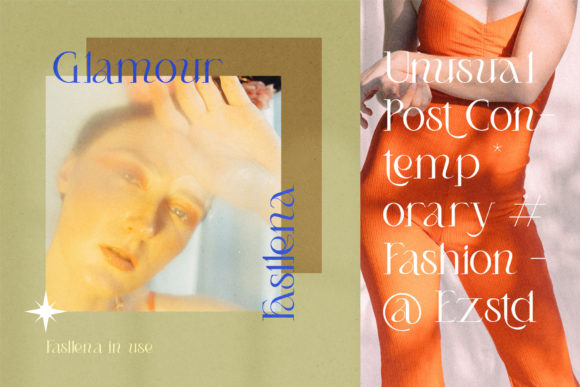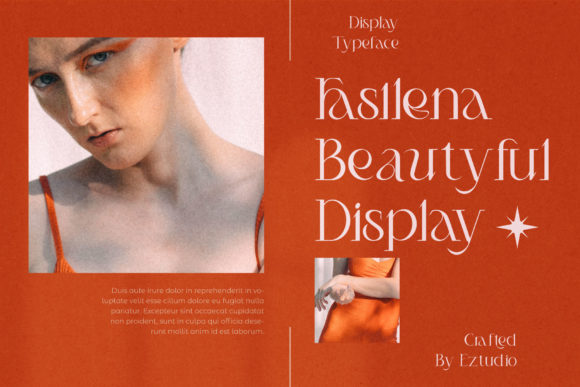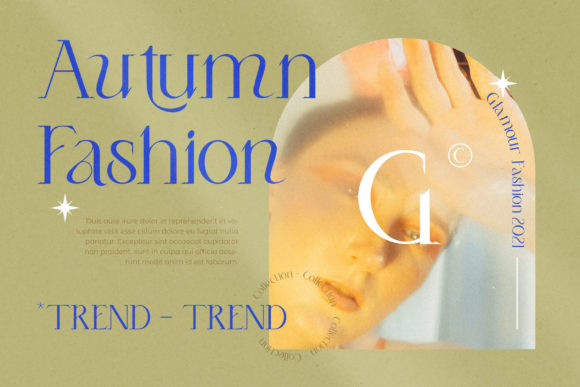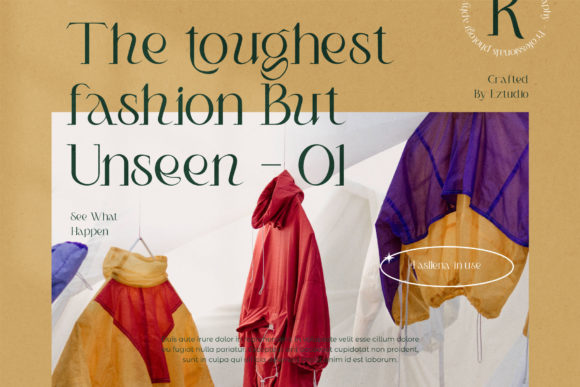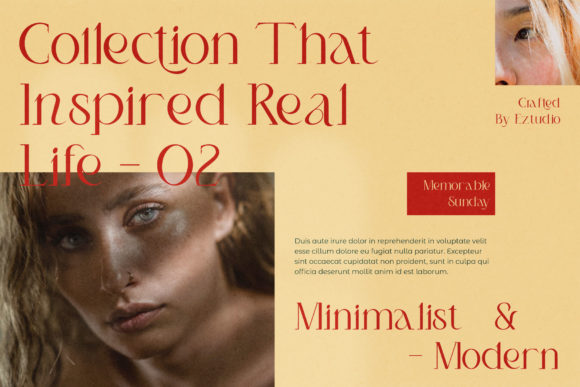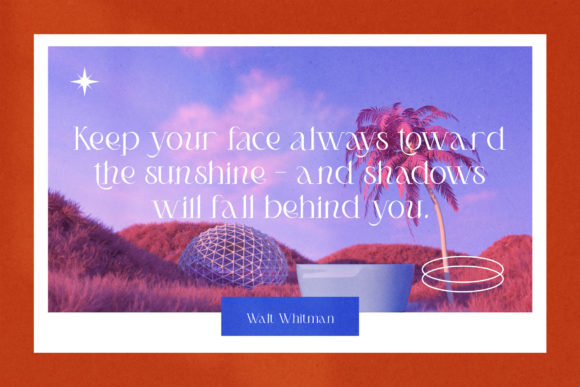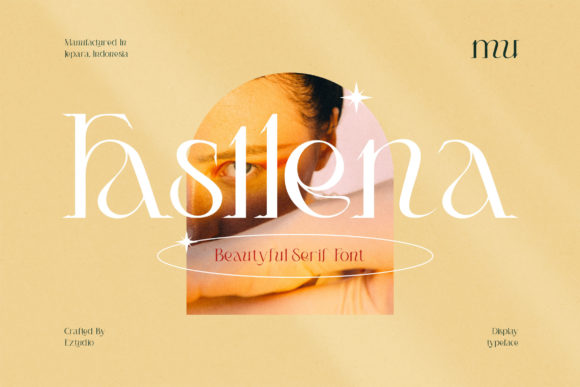
Fasllena Font: Elevate Your Designs with Elegance and Classic Style
Are you a designer or crafter looking for a font that can add a touch of sophistication and elegance to your creative projects? Look no further than Fasllena Font. This beautiful serif font is incredibly versatile and can elevate a wide range of designs to new heights. In this article, we’ll take a closer look at Fasllena Font and explore its features, benefits, and uses.
What is Fasllena Font?
Fasllena Font is a classic serif font that exudes elegance and refinement. Its timeless design makes it perfect for a variety of projects, from luxury branding and advertising to packaging, magazines, and more. The font’s serif details add a touch of sophistication, while its clean lines and simple shapes ensure that it remains highly legible, even at small sizes.
Key Features of Fasllena Font
So, what makes Fasllena Font so special? Here are just a few of its key features:
- Elegant and Classic Design: Fasllena Font features a traditional serif design that is both elegant and timeless.
- Highly Versatile: This font is incredibly versatile and can be used in a wide range of projects, from luxury branding to digital media.
- Excellent Legibility: Fasllena Font is designed to be highly legible, even at small sizes, making it perfect for body text and captions.
- Serif Details: The font’s serif details add a touch of sophistication and elegance to any design.
Benefits of Using Fasllena Font
So, why should you choose Fasllena Font for your next project? Here are just a few benefits of using this beautiful font:
- Adds Elegance and Sophistication: Fasllena Font can add a touch of elegance and sophistication to any design, making it perfect for luxury brands and high-end products.
- Improves Readability: The font’s excellent legibility ensures that your text is easy to read, even at small sizes.
- Increases Versatility: Fasllena Font can be used in a wide range of projects, from print to digital media, making it a great addition to any designer’s toolkit.
- Enhances Creativity: With Fasllena Font, you can create stunning designs that are sure to capture the attention of your audience.
Uses of Fasllena Font
Fasllena Font is incredibly versatile and can be used in a wide range of projects, including:
- Luxury Branding: Fasllena Font is perfect for luxury brands looking to add a touch of elegance and sophistication to their branding.
- Advertising: The font’s classic design makes it perfect for advertising campaigns, from print to digital media.
- Packaging: Fasllena Font can add a touch of elegance to packaging design, making it perfect for high-end products.
- Magazines and Editorial Design: The font’s excellent legibility and classic design make it perfect for magazines and editorial design.
- Use it as a Headline Font: Fasllena Font is perfect for headlines and titles, where its elegant design can really shine.
- Pair it with Other Fonts: Fasllena Font can be paired with other fonts to create stunning contrast and visual interest.
- Experiment with Different Sizes: The font’s excellent legibility ensures that it remains clear and readable, even at small sizes.
Fasllena Font is a beautiful and elegant serif font that can add a touch of sophistication and elegance to any design. Its versatility, excellent legibility, and classic design make it perfect for a wide range of projects, from luxury branding to digital media. Whether you’re a designer or crafter, Fasllena Font is a great addition to your toolkit. So why not give it a try and see how it can elevate your designs to new heights?